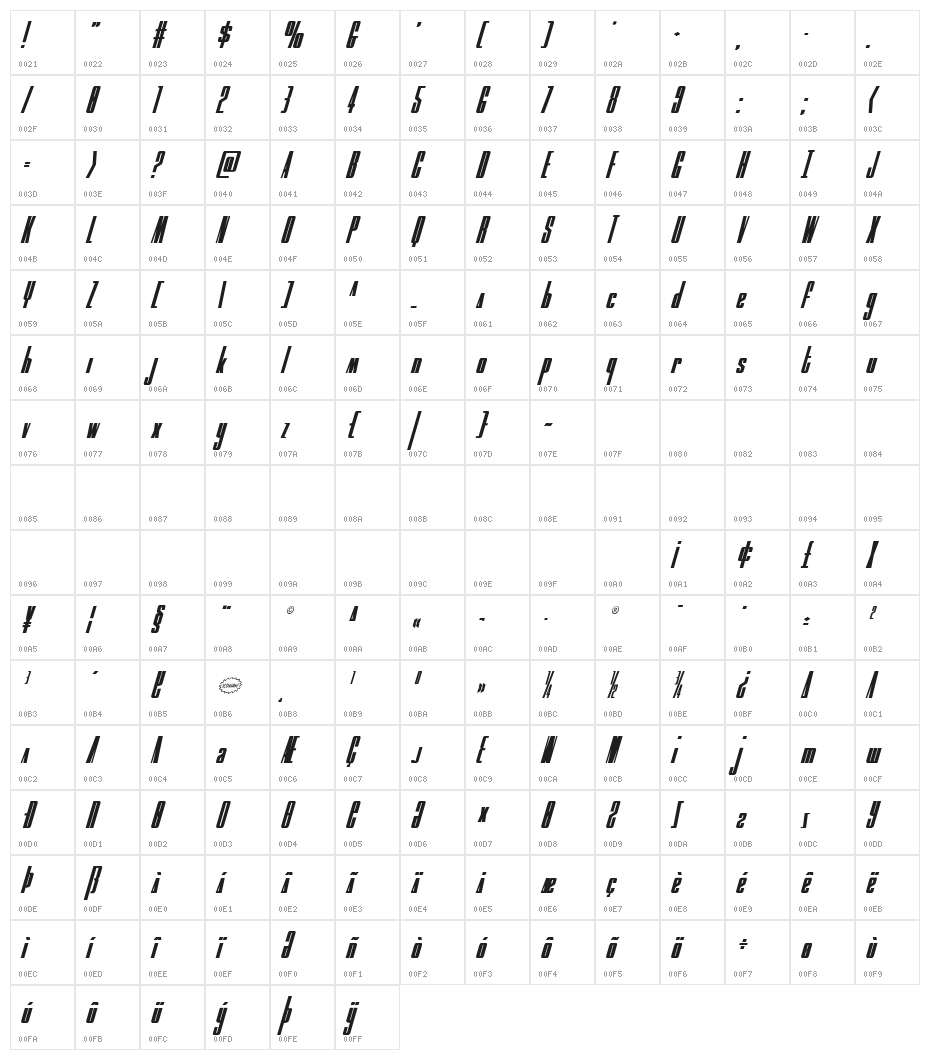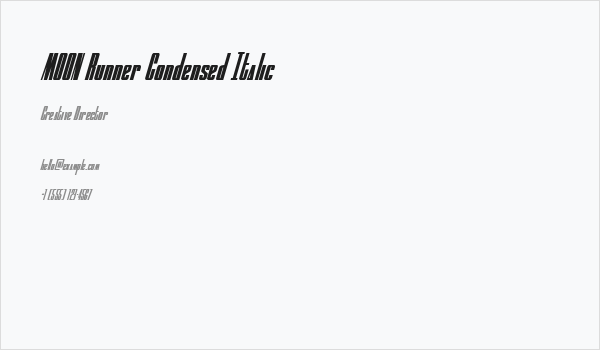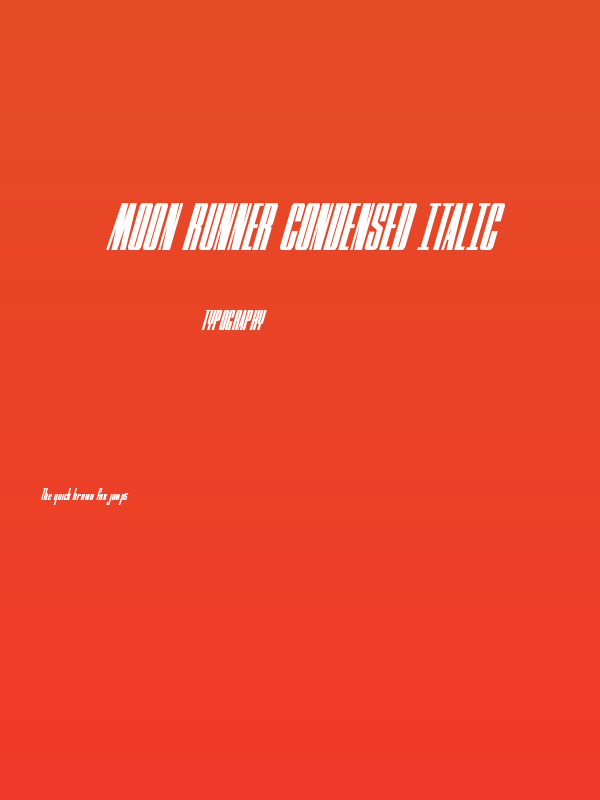
MOON Runner Condensed Italic Font
MOON Runner Condensed Italic Description
This font features a dynamic and modern design with a strong italic slant, giving it a sense of motion and speed. The condensed letterforms are sleek and elongated, contributing to a futuristic and edgy appearance. The uppercase and lowercase characters maintain a consistent style, with sharp angles and clean lines that enhance readability while maintaining a unique aesthetic. The numerals and special characters are designed to match the overall style, ensuring a cohesive look across all text elements. This font is ideal for projects that require a bold and impactful visual statement.
| Proposed Projects | Ideal for sports branding, automotive designs, futuristic themes, and dynamic advertising. |